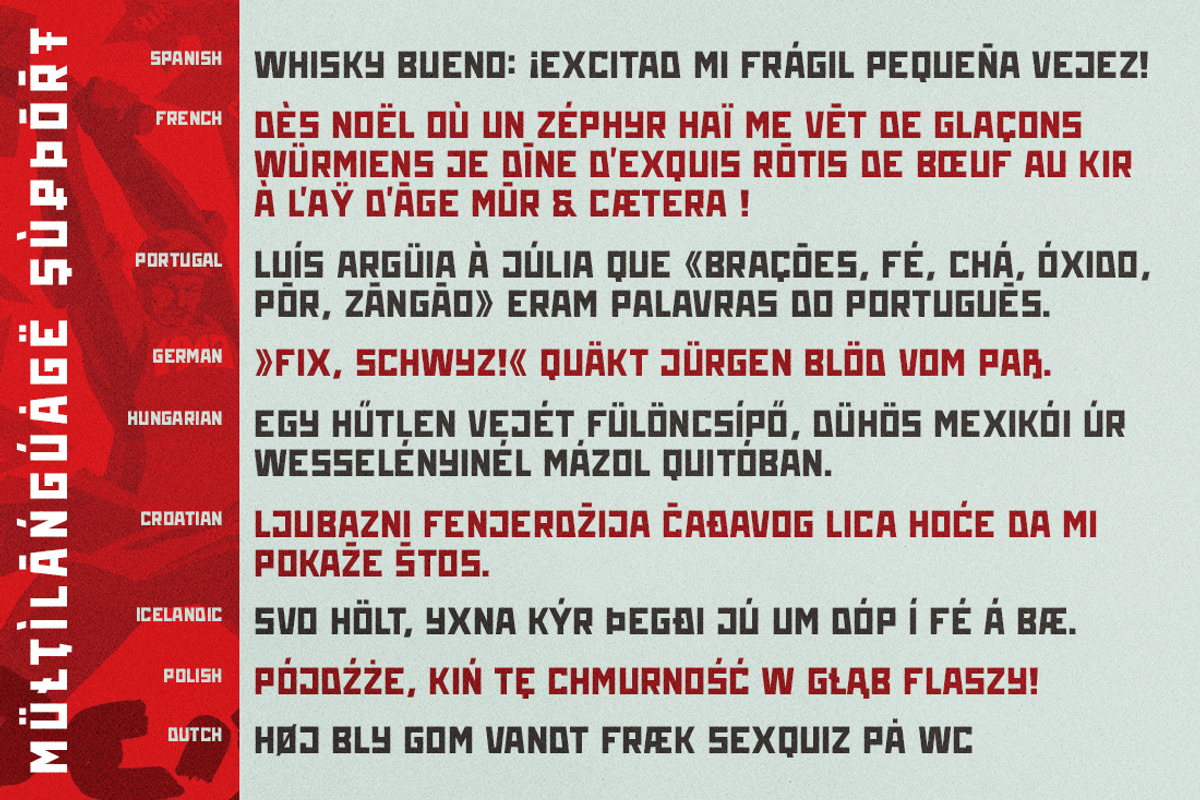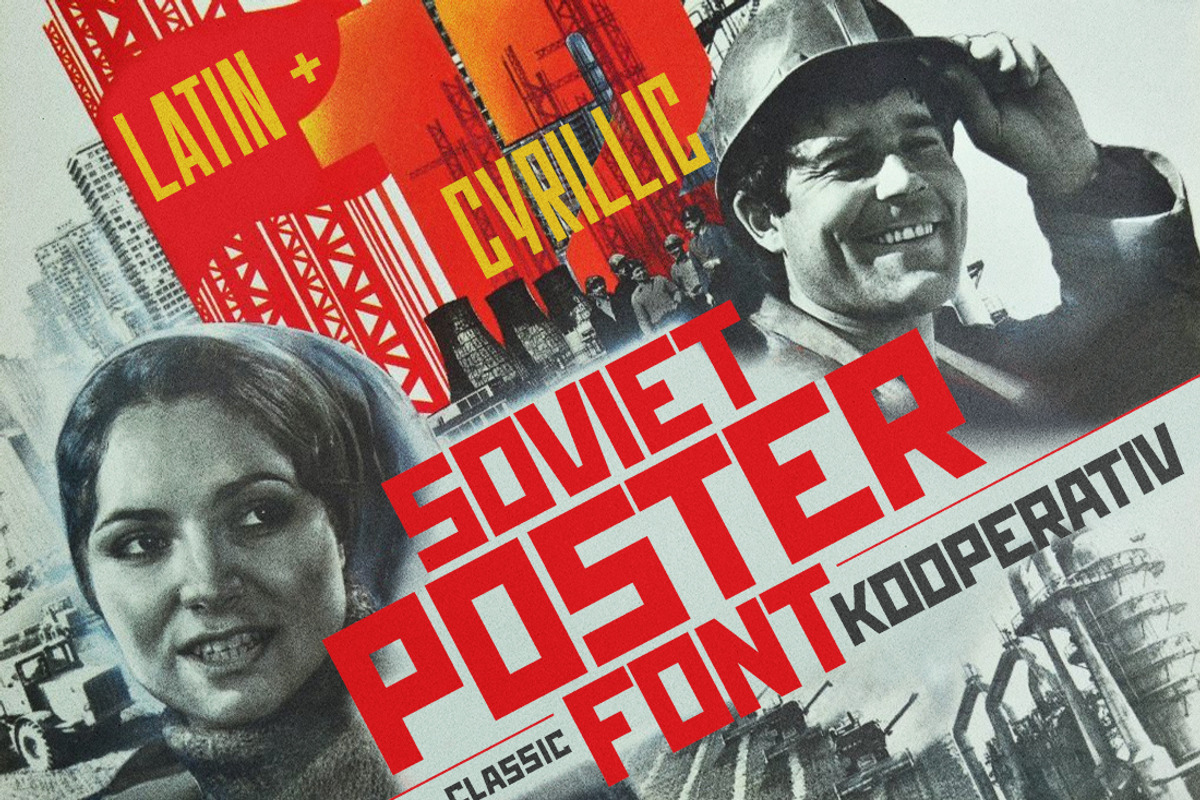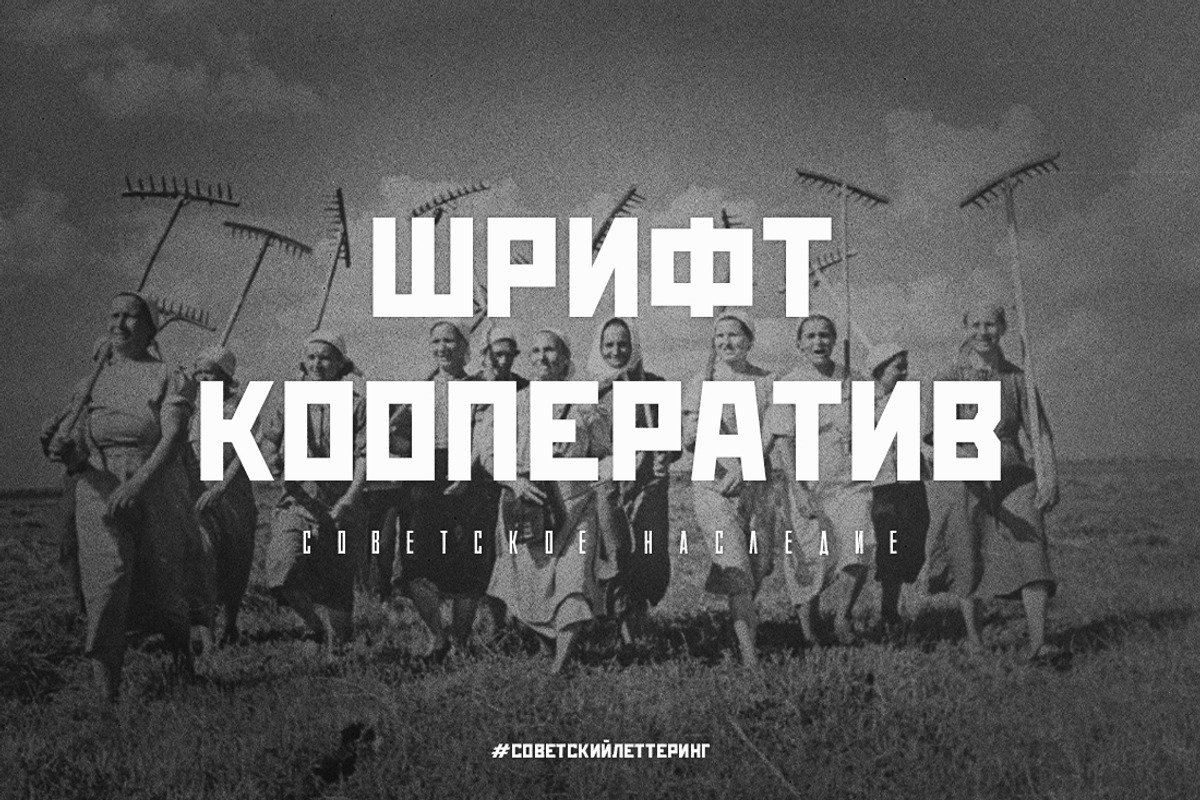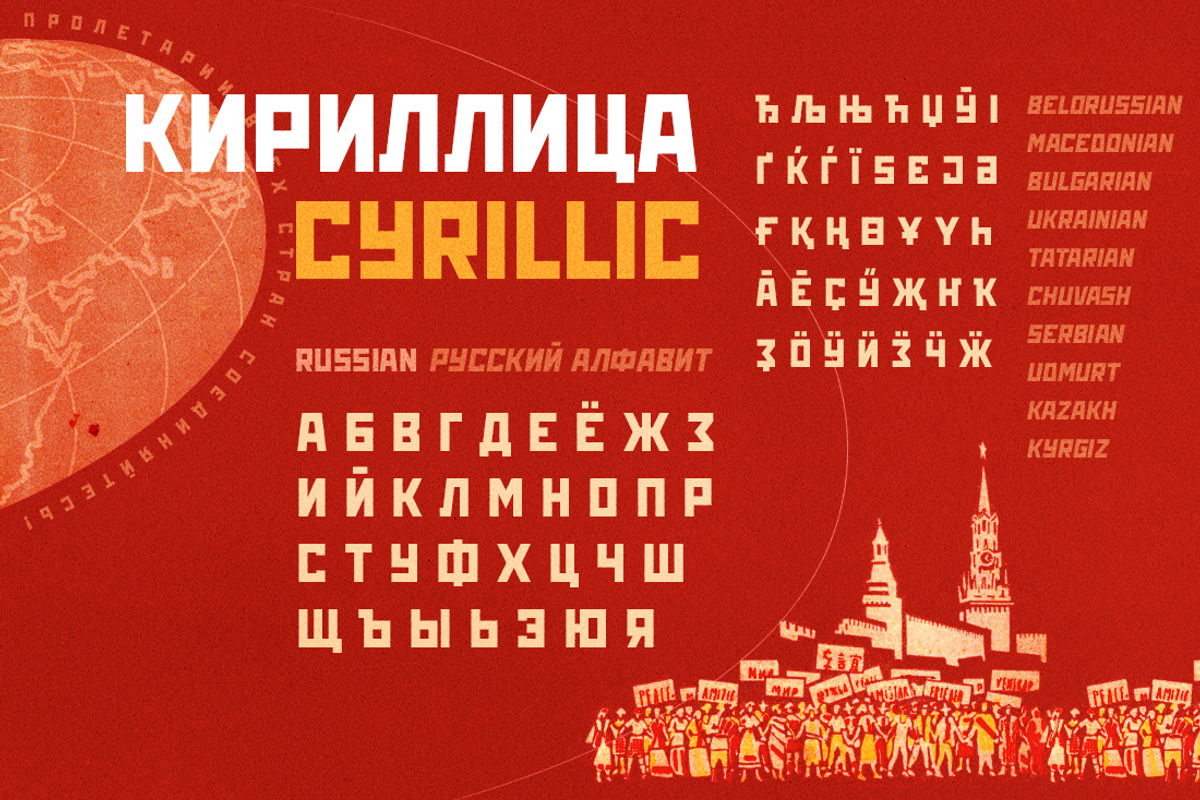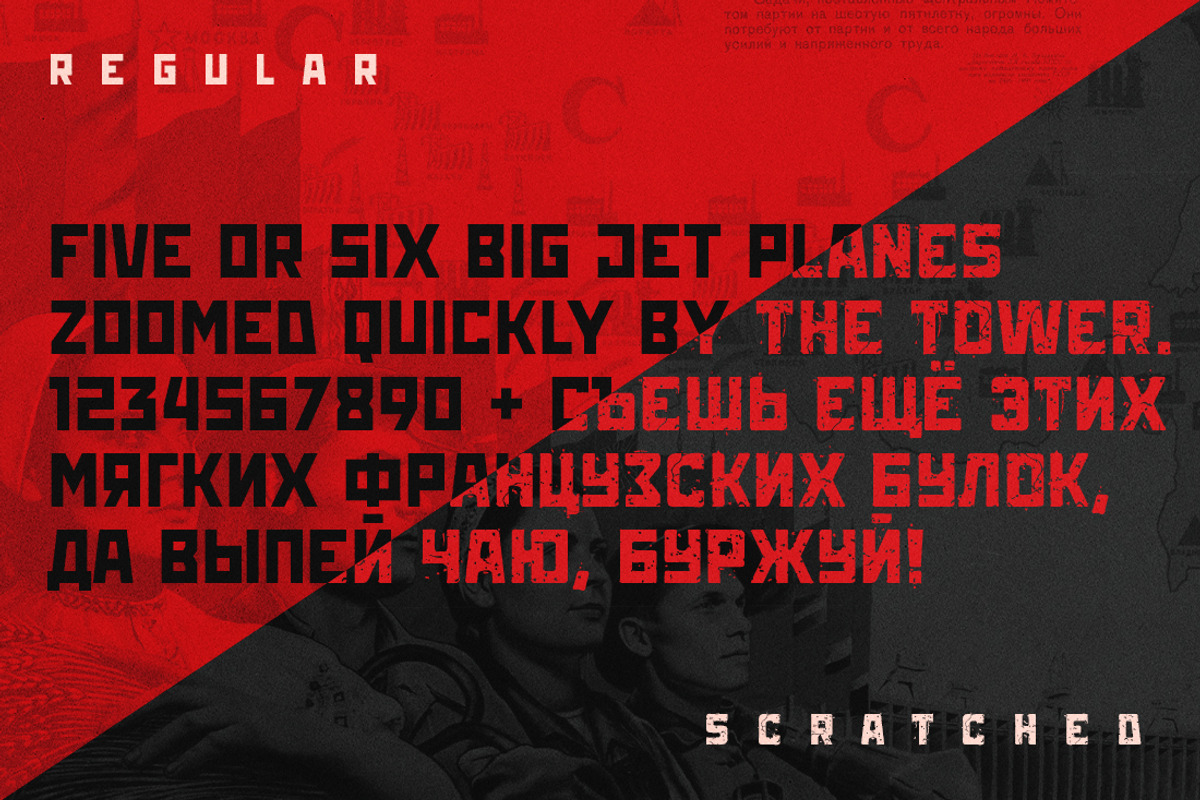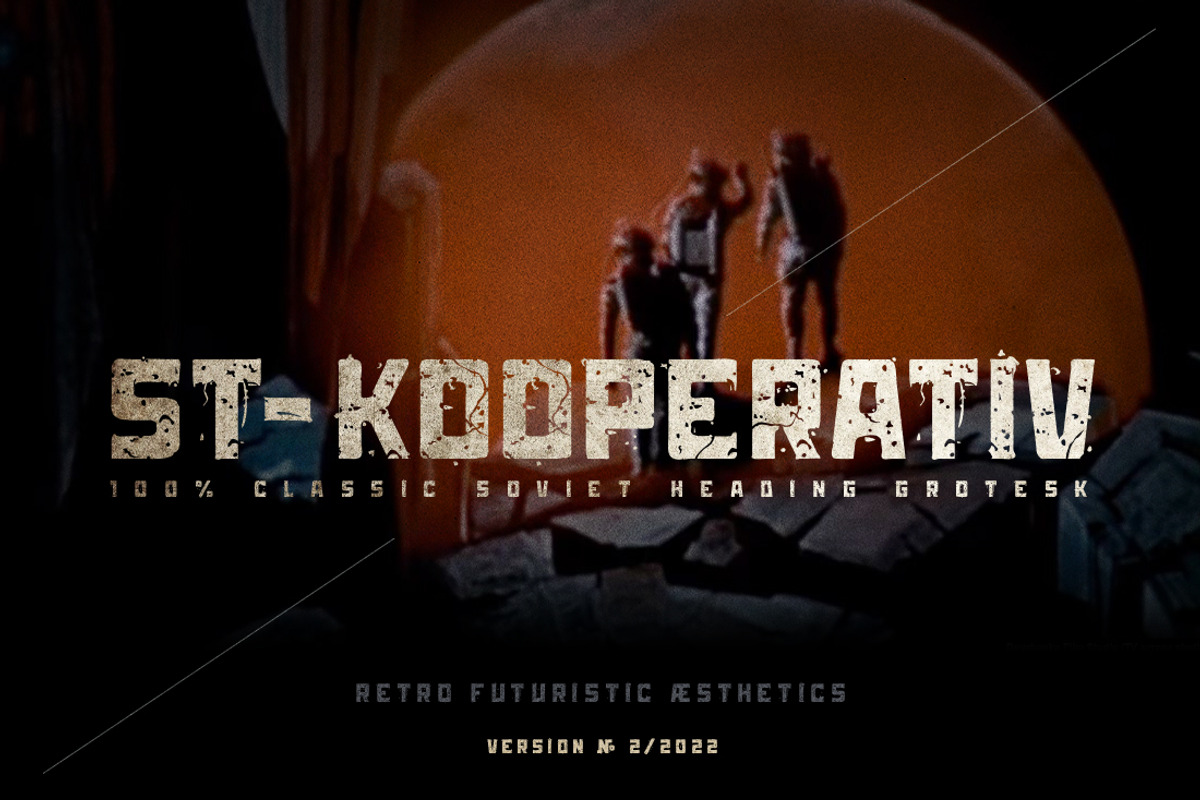
KOOPERATIV Soviet poster font
Introducing a retro grotesque called "Kooperativ" (Сooperative). Bring back to the Soviet era this font reproduces the classic Soviet posters letters. The letterforms are straight and bold and come in 2 styles: regular clean and scratched. It has Extended Cyrillic and Extended Latin letters. "Kooperativ" created for titles, poster design, web design, branding and packaging works, illustrations, badges and other typography works.
*ST-Koopeartiv supports more than 40 languages, pls check the alphabet you need in the test field below.